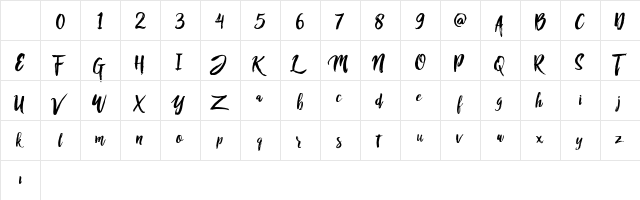
Complete RofiTaste Regular glyph index. Displaying only characters natively supported by RofiTaste Regular font.
RofiTaste is a composed and adaptable typeface that performs quietly and consistently across a wide range of design contexts.